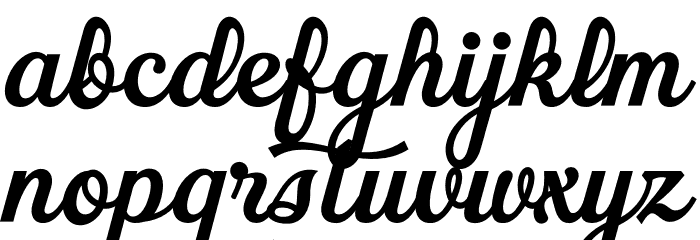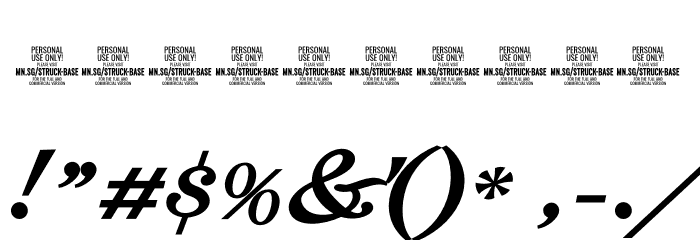
Struck Base PERSONAL USE ONLY Font
This font features a bold and flowing script style, characterized by its elegant and cursive letterforms. Each character is designed with smooth curves and a consistent stroke width, creating a harmonious and fluid appearance. The uppercase letters exhibit a classic calligraphic flair, while the lowercase letters maintain a cohesive and connected look, enhancing readability. The numerals and special characters are crafted to match the overall aesthetic, providing a seamless integration with the alphabet. This font exudes a sense of sophistication and grace, making it suitable for a variety of creative applications.
A bold, flowing script font with elegant cursive letterforms.
- Proposed Projects: Ideal for wedding invitations, branding, logo design, and elegant stationery.
- Category: Script
- Overall Style: Classic
- Use Case: Logos, Headlines, Invitations